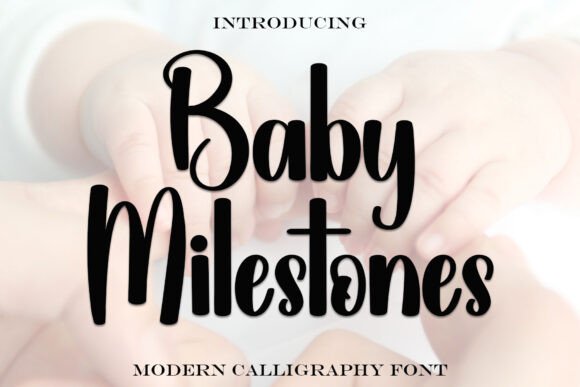
Baby Milestones Font: Elevate Your Designs with Elegance and Class
In the world of typography, fonts play a crucial role in conveying the tone and personality of a design. When it comes to creating visually appealing and sophisticated designs, the right font can make all the difference. Introducing Baby Milestones Font, a trendy handwritten font that embodies a contemporary atmosphere and impeccable form, inspired by timeless classic calligraphy.
What is Baby Milestones Font?
Baby Milestones Font is a modern, handwritten font that exudes elegance and class. Its unique and distinctive style is perfect for designers looking to add a touch of sophistication to their projects. With its clean lines, beautiful letterforms, and flowing connections, this font is sure to impress.
The font’s design is inspired by traditional calligraphy, but with a fresh and contemporary twist. The result is a font that feels both classic and modern, making it versatile and suitable for a wide range of applications.
Key Features of Baby Milestones Font
- Trendy and Contemporary: Baby Milestones Font boasts a modern and stylish design that’s perfect for designs that require a fresh and youthful feel.
- Handwritten with Love: The font’s handwritten style gives it a personal and human touch, making it ideal for projects that require a more approachable and emotive feel.
- Inspired by Classic Calligraphy: The font’s design is rooted in traditional calligraphy, giving it a sense of timelessness and sophistication.
- Impeccable Form: The font’s letterforms are carefully crafted to ensure perfect proportions, balance, and harmony.
- Elegant and Classy: Baby Milestones Font adds a touch of elegance and class to any design, making it perfect for high-end projects and luxury brands.
Uses of Baby Milestones Font
Baby Milestones Font is a versatile font that can be used in a variety of design projects, including:
- Logos and Branding: The font’s elegant and classy style makes it perfect for logos, wordmarks, and branding projects that require a sophisticated feel.
- Wedding and Event Design: The font’s romantic and whimsical feel makes it ideal for wedding invitations, event branding, and other celebratory designs.
- Packaging and Product Design: The font’s modern and stylish design makes it suitable for packaging and product design projects that require a fresh and youthful feel.
- Advertising and Marketing: The font’s elegant and classy style makes it perfect for advertising and marketing materials, such as brochures, flyers, and posters.
Why Choose Baby Milestones Font?
With so many fonts available, why choose Baby Milestones Font? Here are just a few reasons:
- Unique and Distinctive: The font’s unique and distinctive style sets it apart from other fonts, ensuring your designs stand out from the crowd.
- High-Quality Design: The font’s design is of exceptionally high quality, with careful attention to detail and a focus on aesthetics.
- Easy to Read: The font is easy to read, even at small sizes, making it perfect for body text and other applications where legibility is crucial.
- Versatile: The font is versatile and can be used in a wide range of design projects, from logos and branding to packaging and advertising.
Tips for Using Baby Milestones Font
Here are a few tips for getting the most out of Baby Milestones Font:
- Use it as a Headline Font: The font’s elegant and classy style makes it perfect for headlines and titles.
- Pair it with Other Fonts: The font pairs well with other fonts, especially sans-serif fonts, to create a harmonious and balanced design.
- Experiment with Colors: The font looks great in a variety of colors, so don’t be afraid to experiment and find the perfect hue for your design.
- Pay Attention to Kerning: As with any font, pay attention to kerning to ensure the text looks balanced and visually appealing.
In conclusion, Baby Milestones Font is a beautiful and elegant font that’s perfect for designers looking to add a touch of sophistication to their projects. With its trendy and contemporary style, impeccable form, and versatility, this font is sure to become a favorite in your design arsenal.
Whether you’re working on a logo, branding project, wedding invitation, or packaging design, Baby Milestones Font is a great choice. So why not give it a try and see how it can elevate your designs to the next level?